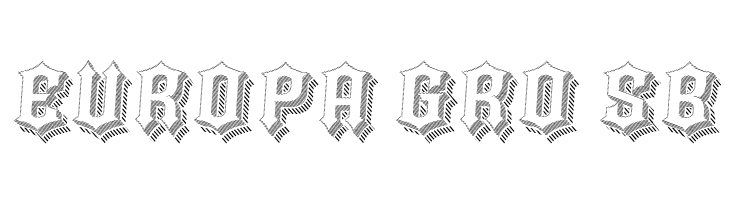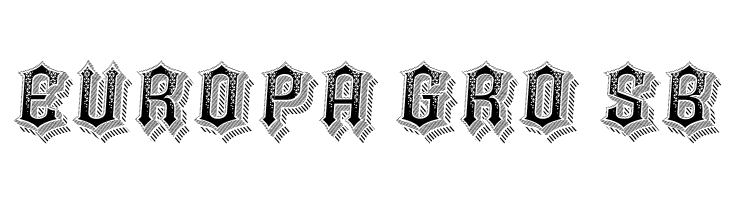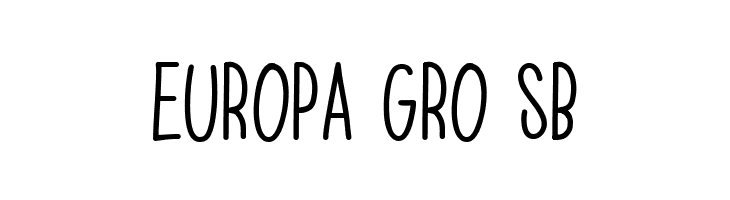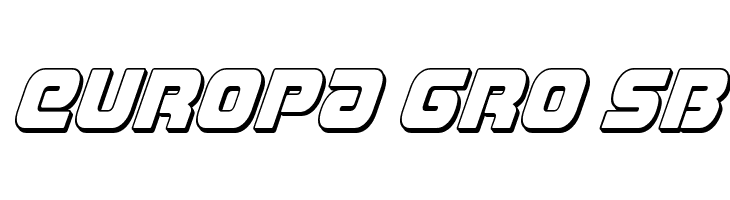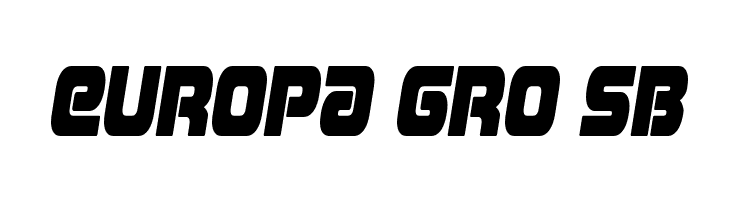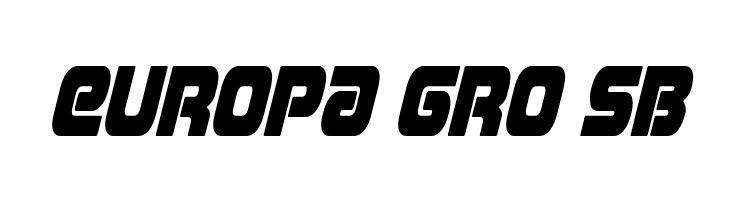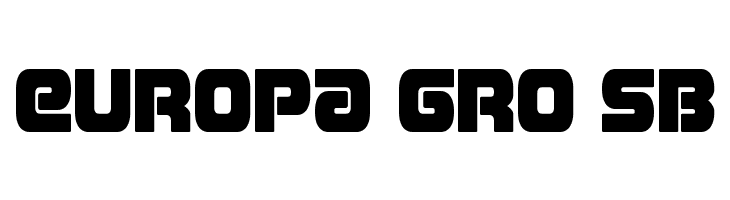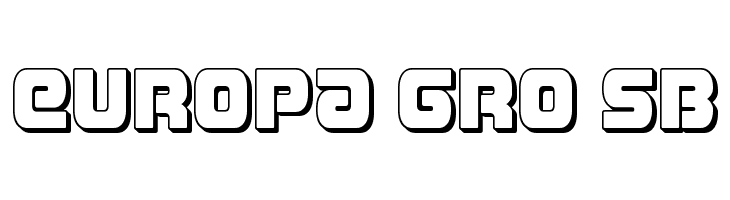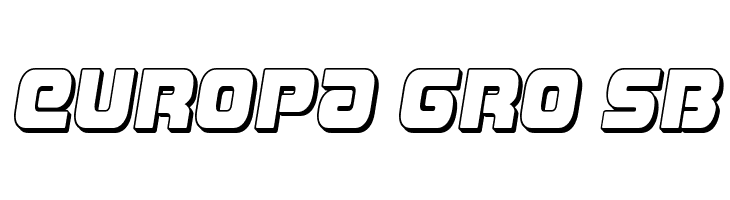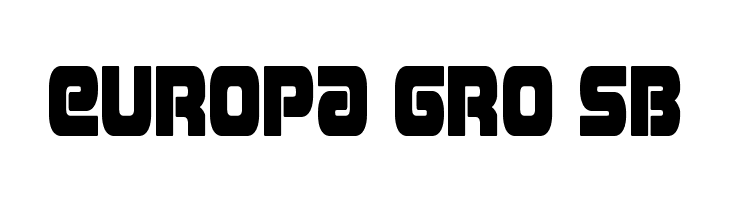
( Fonts by Zetafonts - Personal-use only. For commercial use please contact owner. ) A modern, geometric font with consistent stroke width and smooth curves. Download 83 Downloads@WebFont
( Fonts by Zetafonts - Personal-use only. For commercial use please contact owner. ) A modern, italic font with clean lines and elegant curves. Download 36 Downloads@WebFont
( Fonts by Zetafonts - Personal-use only. For commercial use please contact owner. ) A modern geometric sans-serif font with a clean and balanced design. Download 44 Downloads@WebFont
( Fonts by Zetafonts - Personal-use only. For commercial use please contact owner. ) A modern, condensed sans-serif font with uniform stroke width and excellent readability. Download 103 Downloads@WebFont
( Fonts by Zetafonts - Personal-use only. For commercial use please contact owner. ) A modern, geometric sans-serif font with rounded edges and balanced spacing. Download 40 Downloads@WebFont
( Fonts by Zetafonts - Personal-use only. For commercial use please contact owner. ) A modern, geometric sans-serif font with clean lines and uniform strokes. Download 136 Downloads@WebFont
( Fonts by Nick Curtis - www.nicksfonts.com ) A bold, vintage-style serif font with high contrast and strong presence. Download 1829 Downloads@WebFont
( Fonts by Nick Curtis - Personal-use only. For commercial use please contact owner. ) A bold, vintage-inspired serif font with strong vertical lines and block-like serifs. Download 59 Downloads@WebFont
( Fonts by Nick Curtis - Personal-use only. For commercial use please contact owner. ) A bold, three-dimensional font with strong lines and a shadowed effect. Download 57 Downloads@WebFont
( Fonts by Maulana Creative - Gilang Maulana - Personal-use only. For commercial use please contact owner. ) A modern, elegant script font with flowing, connected characters and high contrast. Download 55 Downloads@WebFont
( Fonts by or from www.graffitifonts.net ) A bold, graffiti-inspired font with sharp angles and urban flair. Download 310 Downloads@WebFont
( Fonts by Wellscript Studio - Personal-use only. For commercial use please contact owner. ) A flowing, cursive script font with elegant, connected strokes. Download 45 Downloads@WebFont
( Fonts by Daniel Gauthier ) A bold, angular font with a rugged, vintage western style. Download 2497 Downloads@WebFont
( Fonts by Gassstype ) Playful handwritten font with tall, narrow letters. Download 116 Downloads@WebFont
( Fonts by Fred Cre - Personal-use only. For commercial use please contact owner. ) A playful, handwritten font with tall, narrow letters and a casual style. Download 43 Downloads@WebFont
( Fonts by Dm Letter Studio ) Playful and bold handwritten font. Download 71 Downloads@WebFont
( Fonts by Colette Fogarty ) A playful handwritten font with flowing, slightly irregular letterforms. Download 280 Downloads@WebFont
( http://www.typhoontype.net/category/fonts/ OFF SITE ) An elegant script font with flowing, interconnected letters and decorative swashes. Download 273 Downloads
( Fonts by Wahyu Eka Prasetya - wepfont.com - Personal-use only. For commercial use please contact owner. ) A bold, textured font with a rugged, hand-painted appearance. Download 77 Downloads@WebFont
( Fonts by Vladimir Nikolic - www.creativefabrica.com/designer/vladimirnikolic/ - Personal-use only. For commercial use please contact owner. ) A bold, hollow, decorative font with a blackletter-inspired style. Download 61 Downloads@WebFont
( Fonts by Vladimir Nikolic - www.creativefabrica.com/designer/vladimirnikolic/ - Personal-use only. For commercial use please contact owner. ) An ornate blackletter font with bold, decorative elements and a gothic style. Download 46 Downloads@WebFont
( Fonts by Iconian Fonts - Daniel Zadorozny - Personal-use only. For commercial use please contact owner. ) A bold, geometric font with rounded edges and a modern, impactful style. Download 38 Downloads@WebFont
( Fonts by Iconian Fonts - Daniel Zadorozny - Personal-use only. For commercial use please contact owner. ) A bold, 3D outline font with a futuristic and playful style. Download 34 Downloads@WebFont
( Fonts by Iconian Fonts - Daniel Zadorozny - Personal-use only. For commercial use please contact owner. ) A bold, 3D italic font with outlined characters and a futuristic style. Download 30 Downloads@WebFont
( Fonts by Iconian Fonts - Daniel Zadorozny - Personal-use only. For commercial use please contact owner. ) A bold, 3D semi-italic font with outlined characters and a futuristic style. Download 26 Downloads@WebFont
( Fonts by Iconian Fonts - Daniel Zadorozny - Personal-use only. For commercial use please contact owner. ) A bold, geometric font with rounded edges and a modern, blocky style. Download 38 Downloads@WebFont
( Fonts by Iconian Fonts - Daniel Zadorozny - Personal-use only. For commercial use please contact owner. ) A bold, expanded italic font with a modern, dynamic style. Download 54 Downloads@WebFont